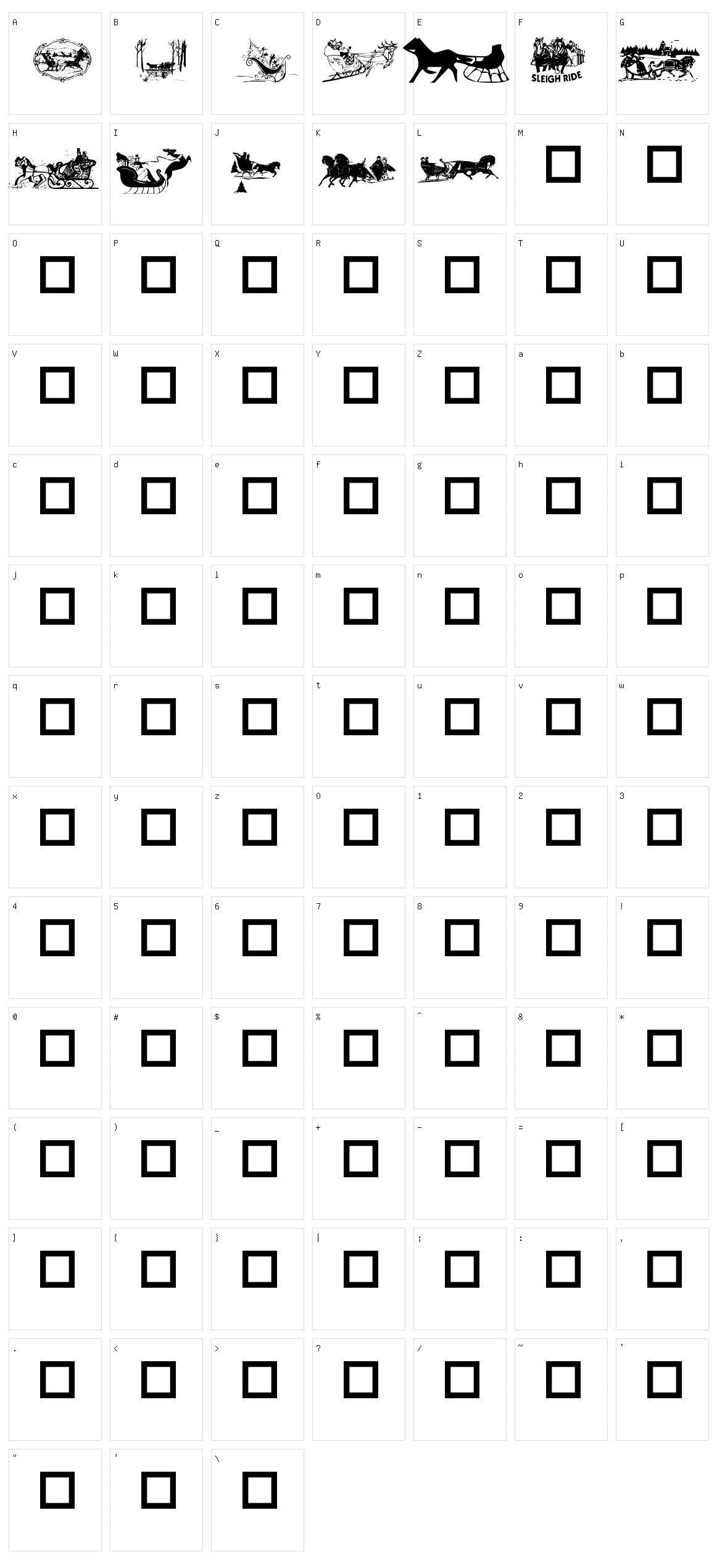
The free font Sleigh Ride is carefully designed by Dani Foster Herring, showcasing a thoughtful balance of creativity and usability and falls under the Christmas font style. When you download the ZIP file, it contains only 43.32 KB of font files, making it lightweight and quick to download. Please review the license details below to understand permitted usage and distribution rights. If license information is not available, we recommend using this font for personal projects only or contacting the author directly for commercial usage permissions.
Sleigh Ride
Dani Foster Herring